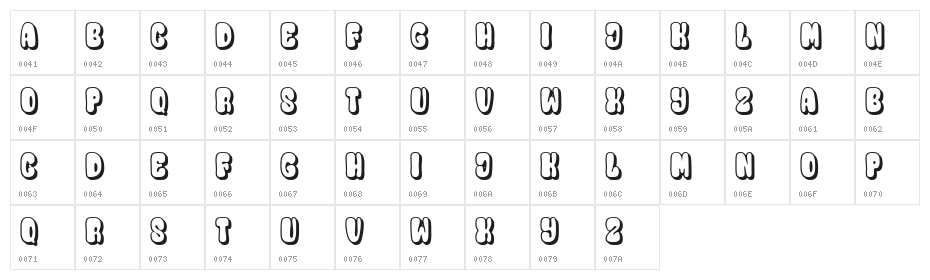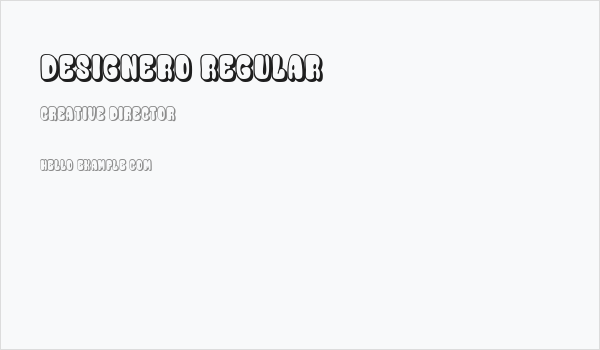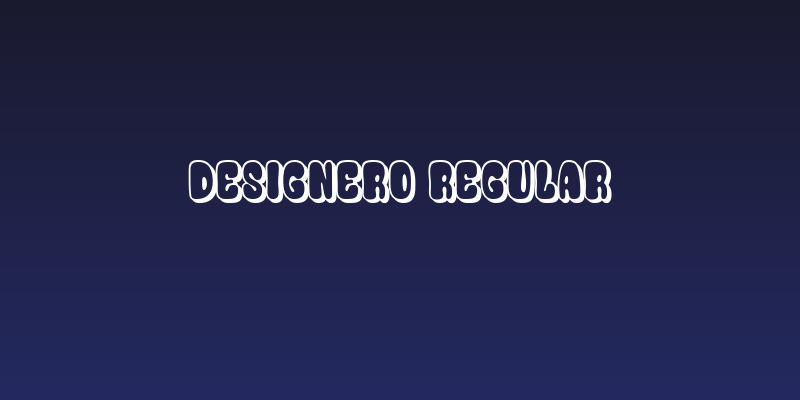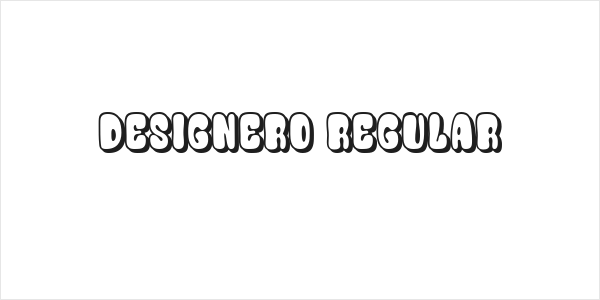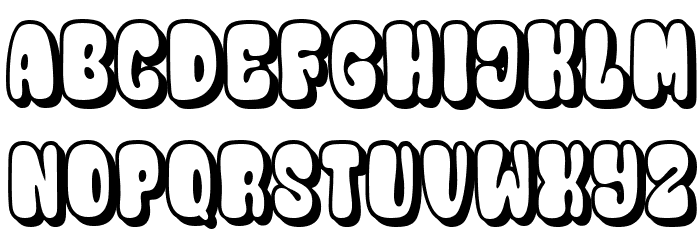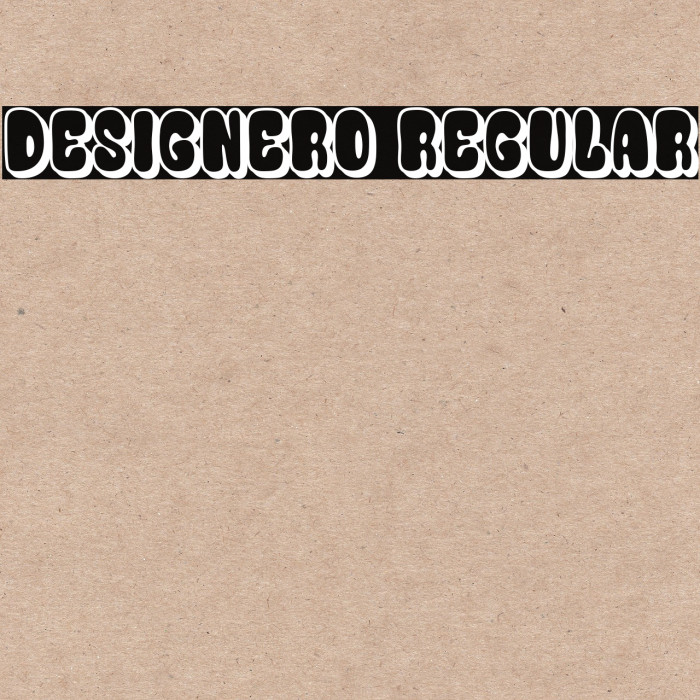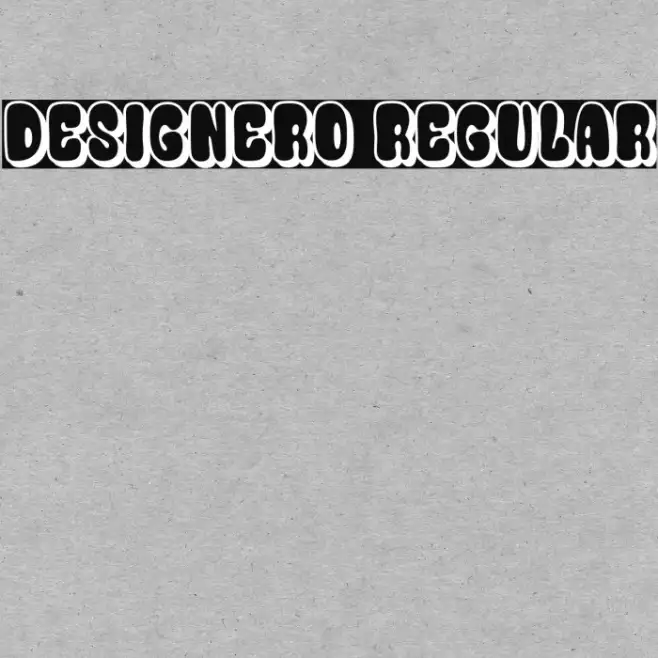
Designero Regular Font
Designero Regular Description
This playful and bold font features thick, rounded letters with a bubbly appearance. The characters are heavily outlined, giving them a cartoonish and eye-catching look. The design is consistent across uppercase and lowercase letters, as well as numbers and special characters, maintaining a cohesive style. The font's exaggerated curves and soft edges contribute to its friendly and approachable feel, making it ideal for informal and creative projects. Its distinct style ensures that it stands out, capturing attention with its unique and whimsical charm.
| Use Case | Logos, Posters, Headlines |